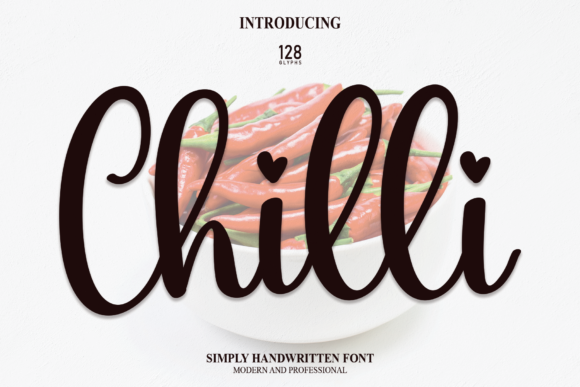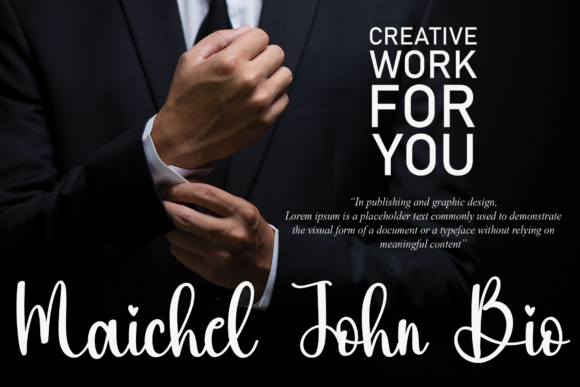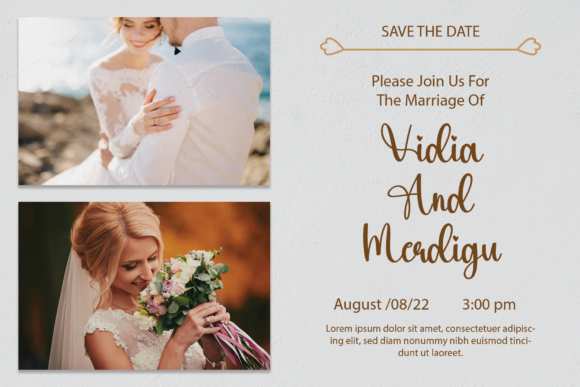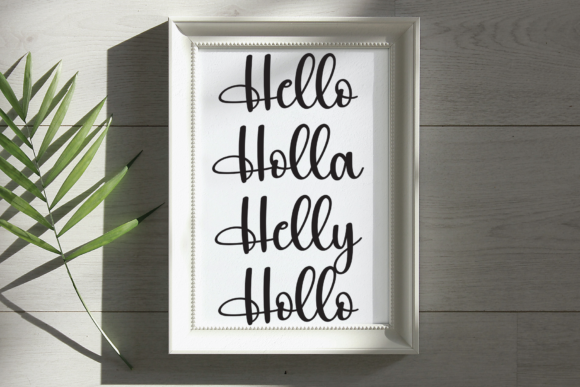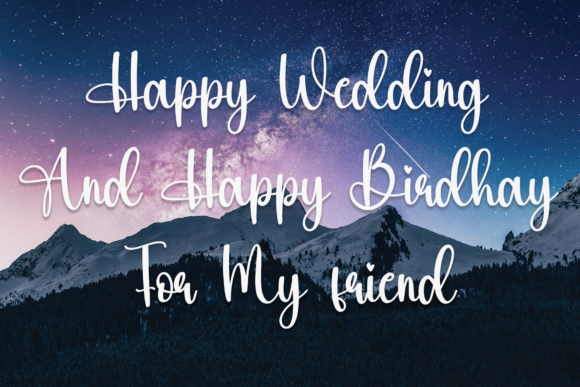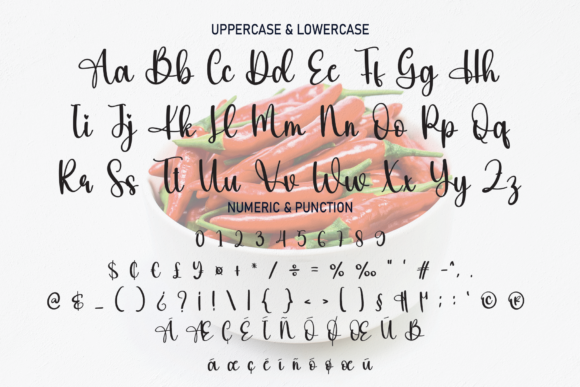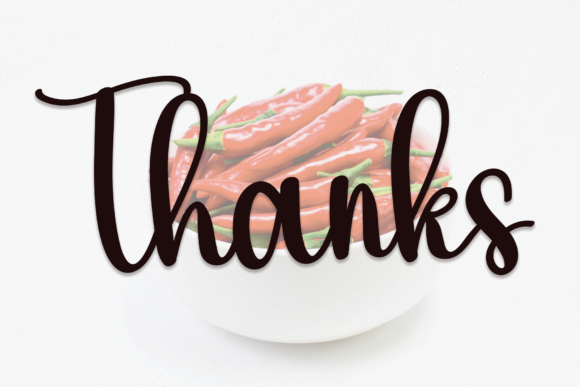
Chilli Font
About Chilli Font
Chilli is a fun and friendly handwritten font designed to add a touch of joy and playfulness to your design ideas. With its unique charm, this font encourages you to get inspired and create lovely designs that stand out.
The fun and friendly nature of Chilli makes it a versatile choice for a variety of design applications. Whether you’re working on branding, logos, invitations, or any creative project, this font brings a whimsical and approachable vibe to your designs.
Chilli’s handwritten style contributes to its personal and authentic feel, making it ideal for projects that require a more casual and expressive touch. The font’s ability to turn any design idea into a standout piece makes it a valuable asset for designers seeking a playful and distinctive typographic element.
In summary, Chilli is more than just a font; it’s a fun and friendly design asset that brings a unique charm to your creative projects. Whether applied to branding or various design needs, Chilli stands out as a font that inspires creativity and adds a delightful touch to every project it graces.